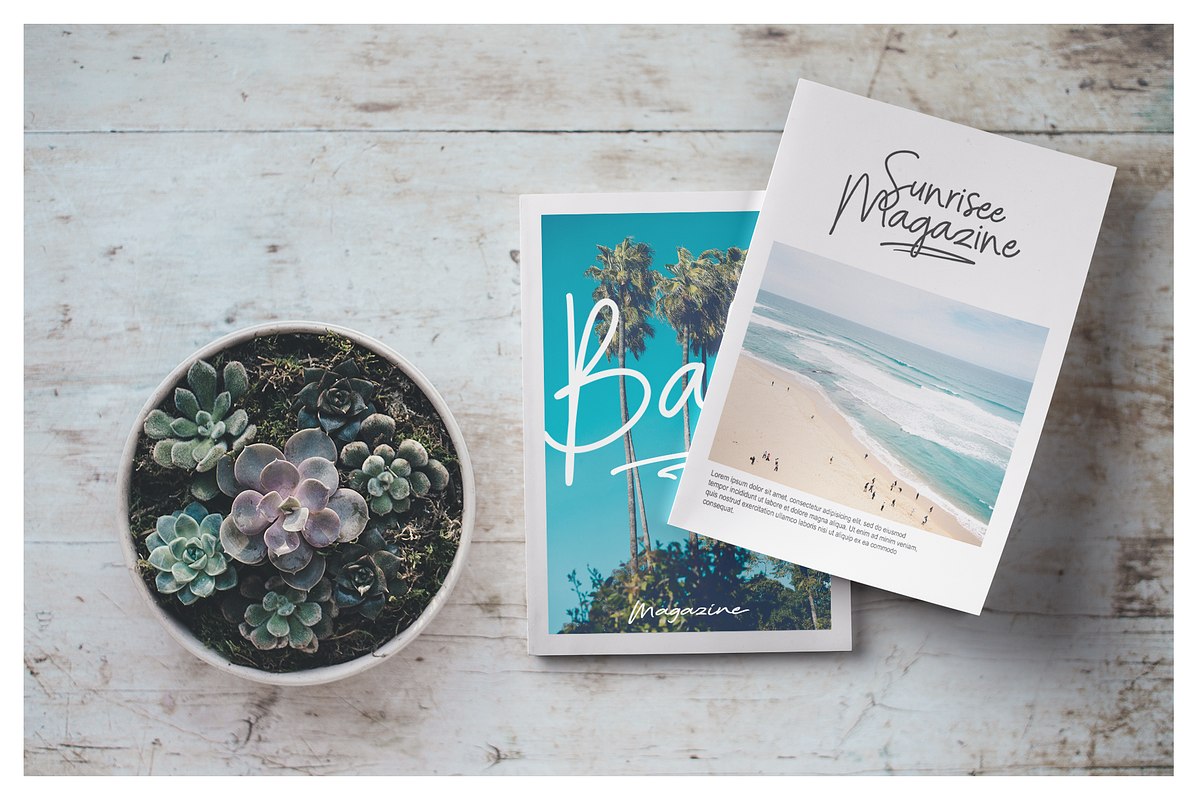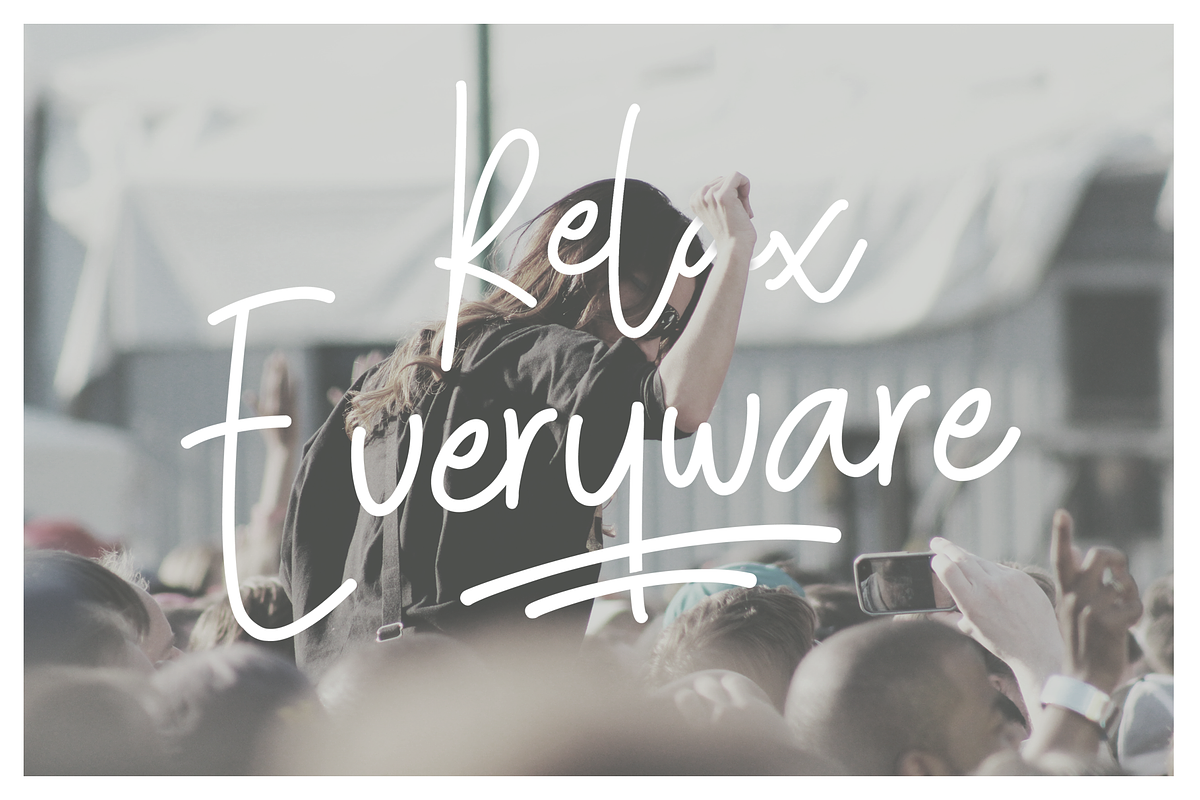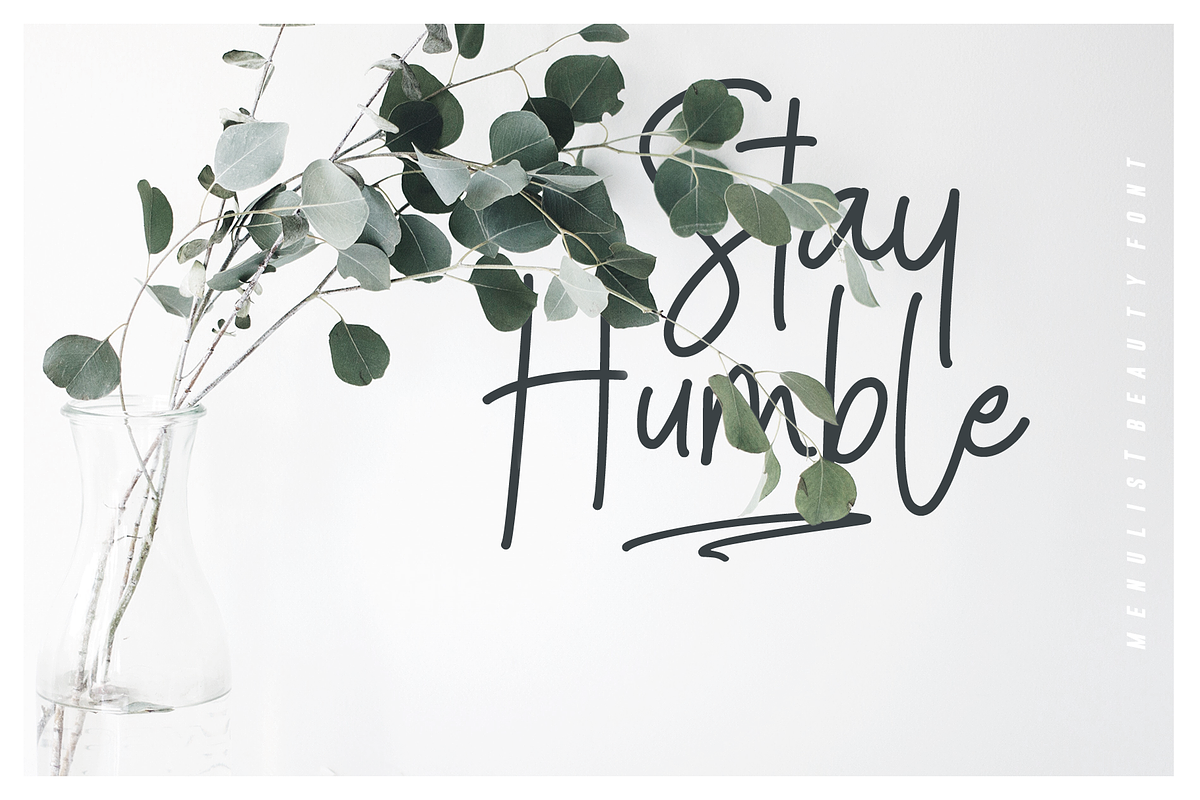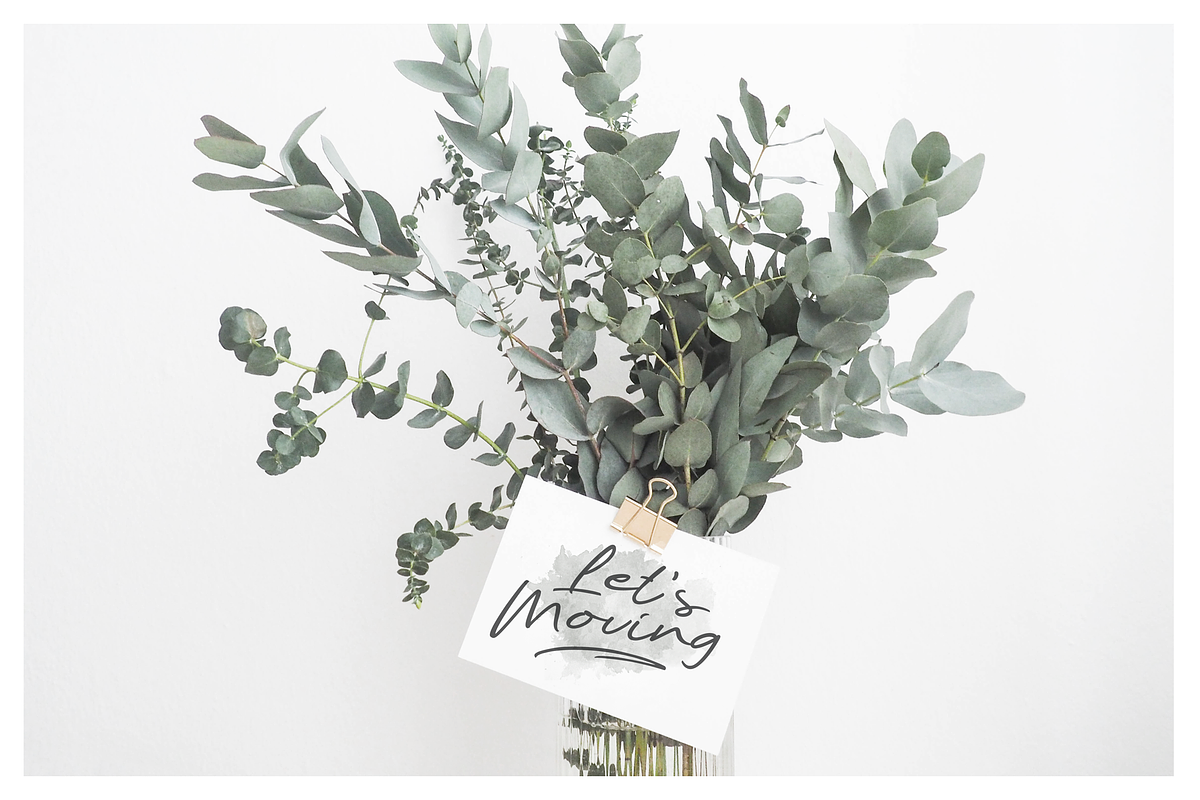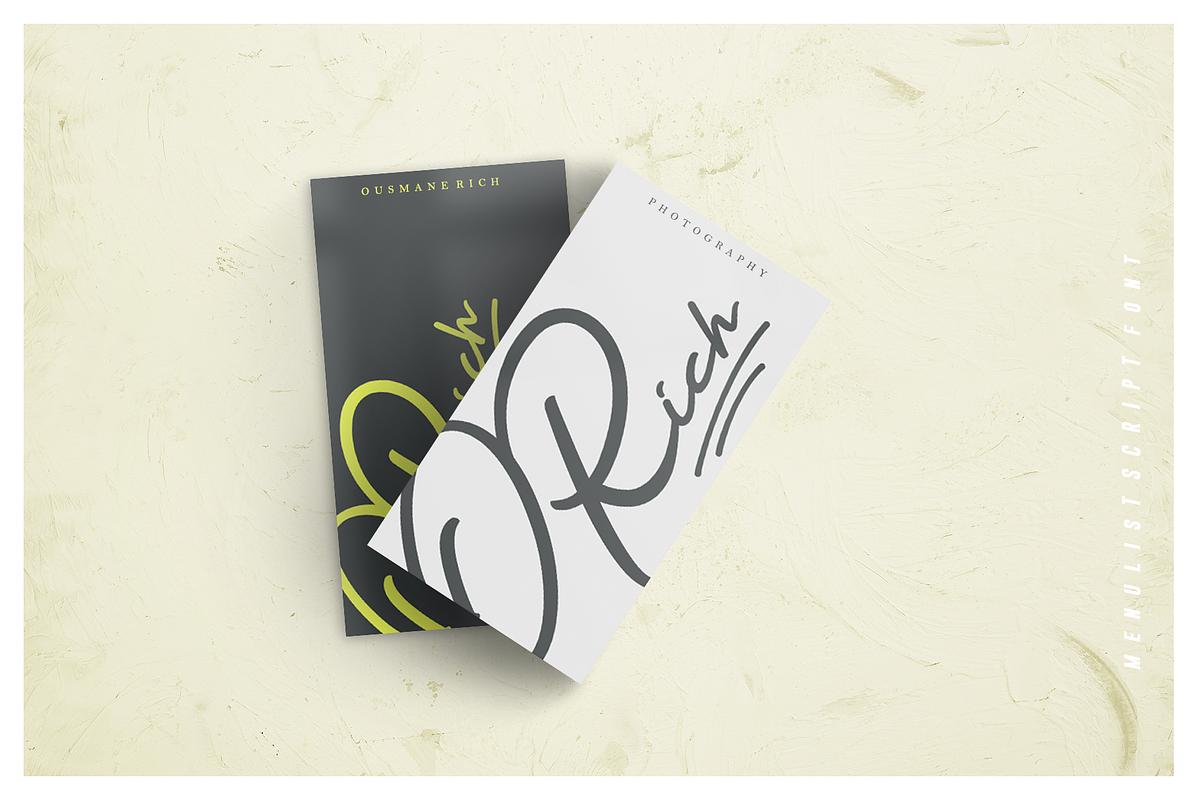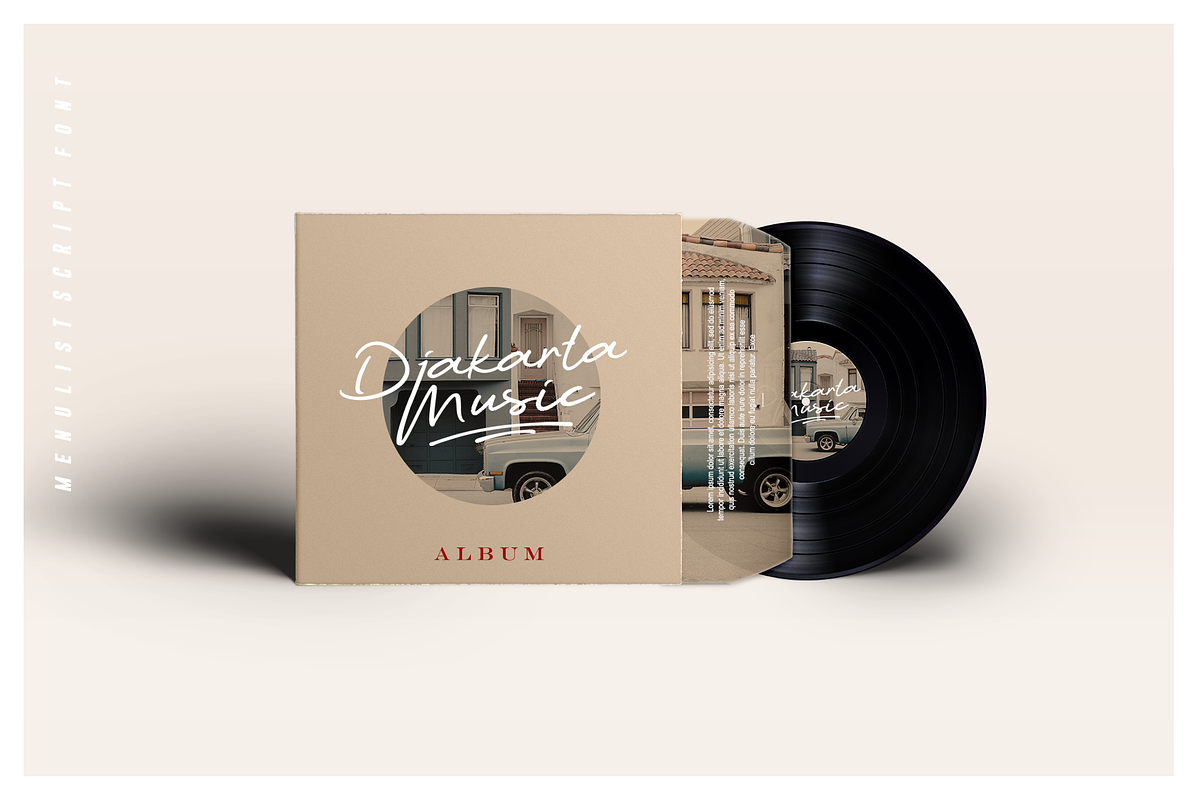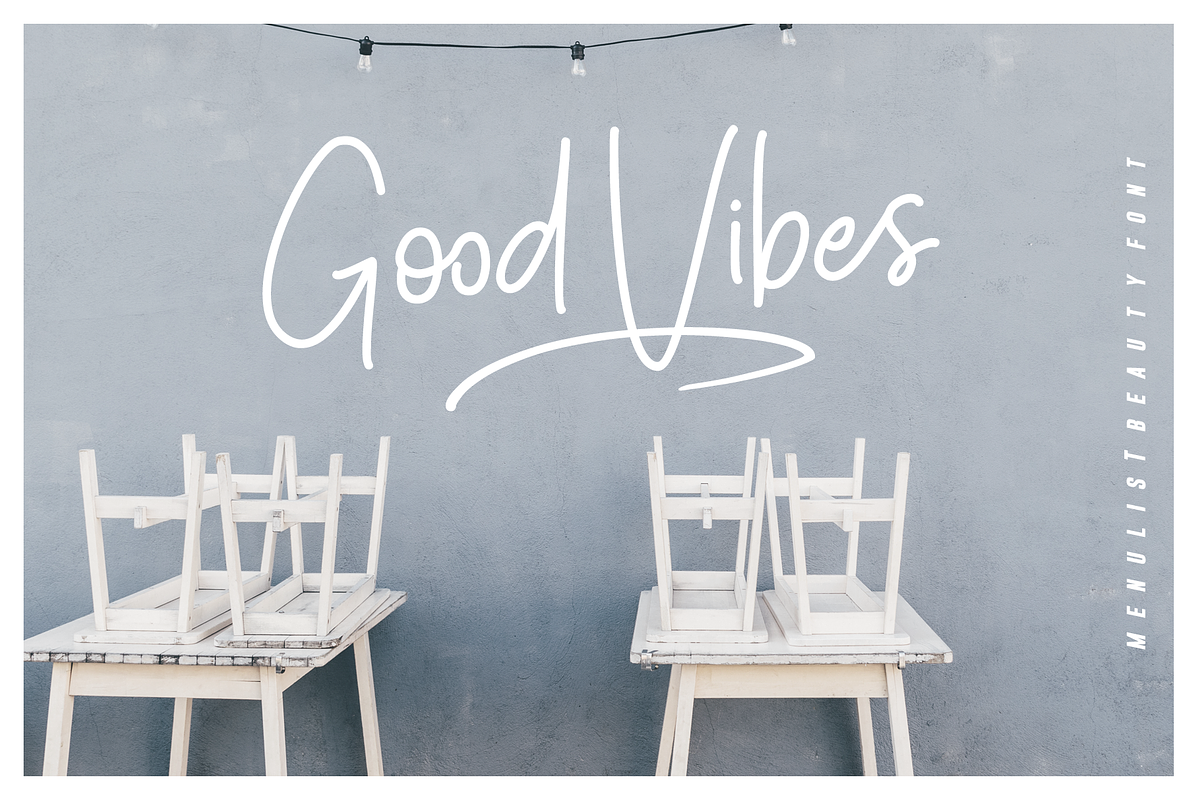
Menulist Script This font is handwritten style and signature style. This font has a very good thickness and can resemble signature in general to make it easier for you in terms of signatures.Menulist Beauty font is modern and minimalist style, has a very beautiful shape in each letter so easy to apply in various places. With the addition of Menulist Swashes, the two fonts look more attractive. This font is very suitable for use with any theme such as logotype, header, product packaging, poster, branding design, card name and more